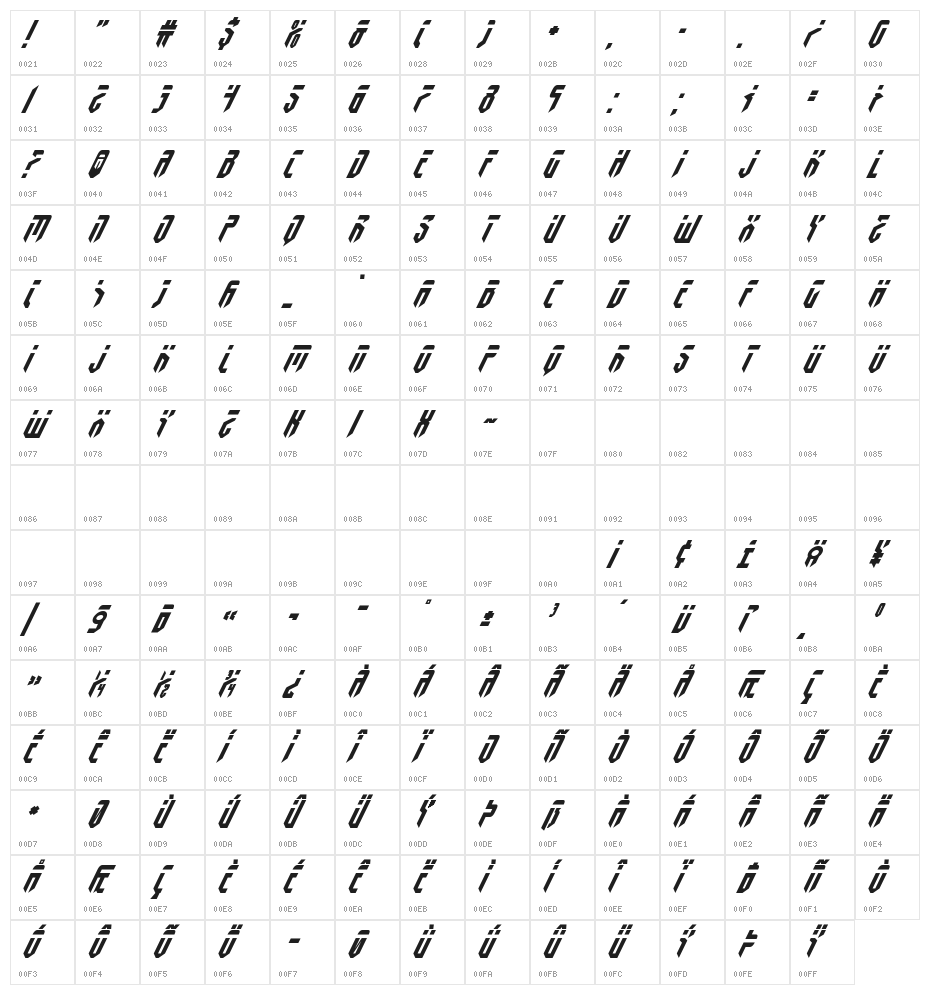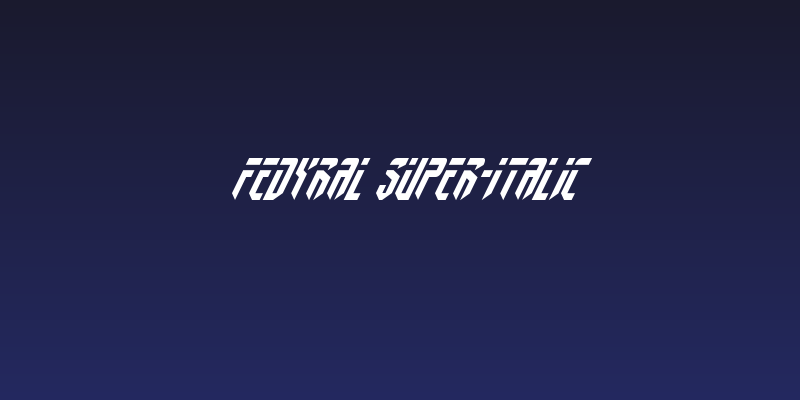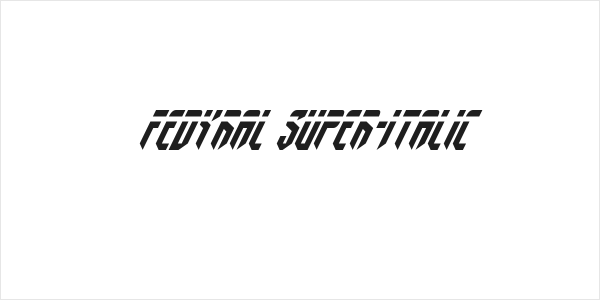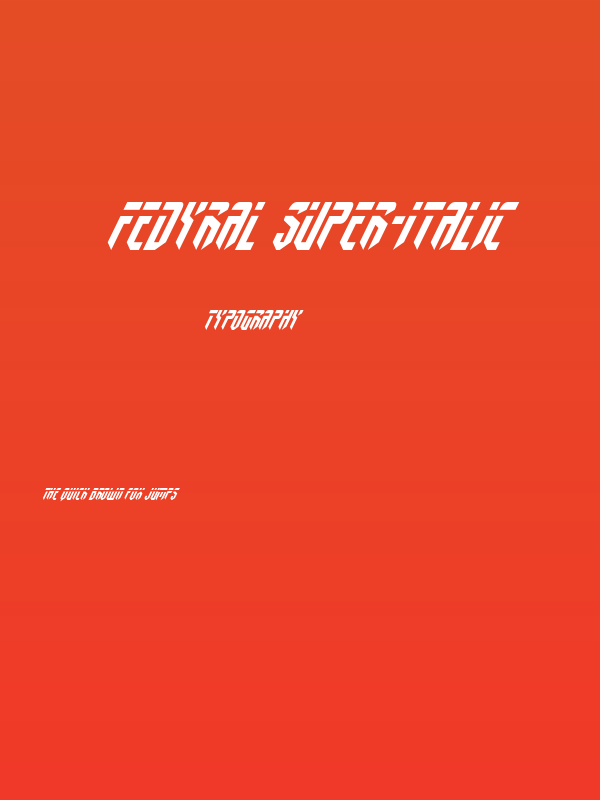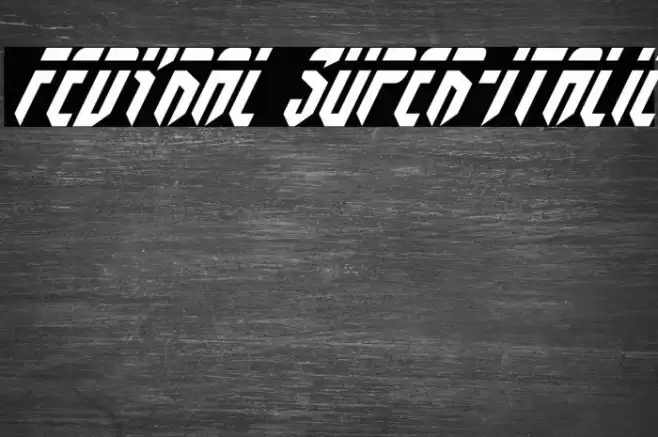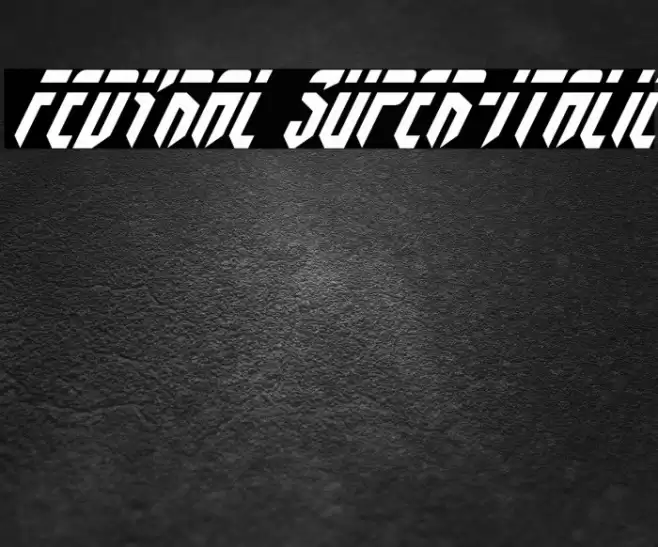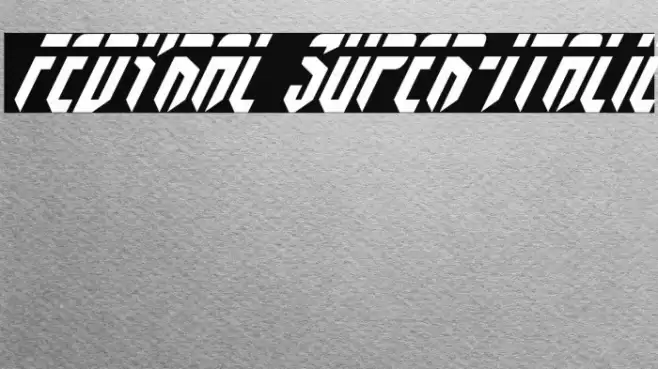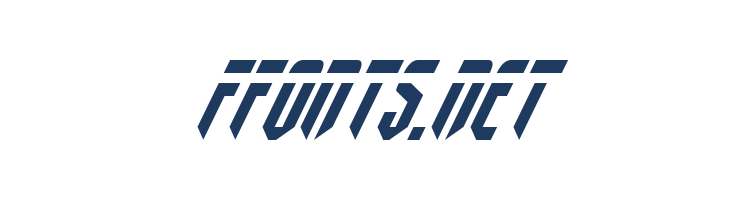
Fedyral Super-Italic Font
This font features a bold and dynamic design with a strong italic slant, giving it a sense of motion and urgency. The characters are sharply angular, with distinct geometric shapes that create a futuristic and aggressive appearance. The uppercase and lowercase letters maintain a consistent style, with exaggerated angles and a uniform stroke width that enhances readability while maintaining a unique aesthetic. The numbers and special characters follow the same design principles, ensuring a cohesive look across all text elements. This font's striking appearance makes it ideal for projects that require a bold statement.
| Proposed Projects | Ideal for sports branding, video game titles, action movie posters, and dynamic logo designs. |